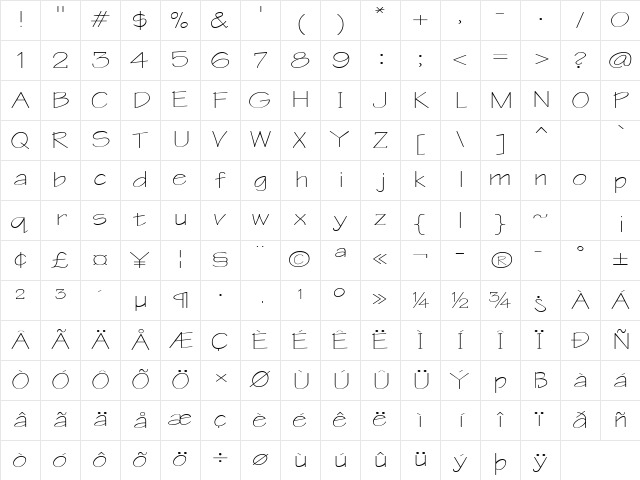
WriteExtended Regular
Design Context for WriteExtended
WriteExtended is a composed and adaptable typeface that performs quietly and consistently across a wide range of design contexts.
Pro Tip: Use WriteExtended in both headline and body roles to test its range before committing to a single application.